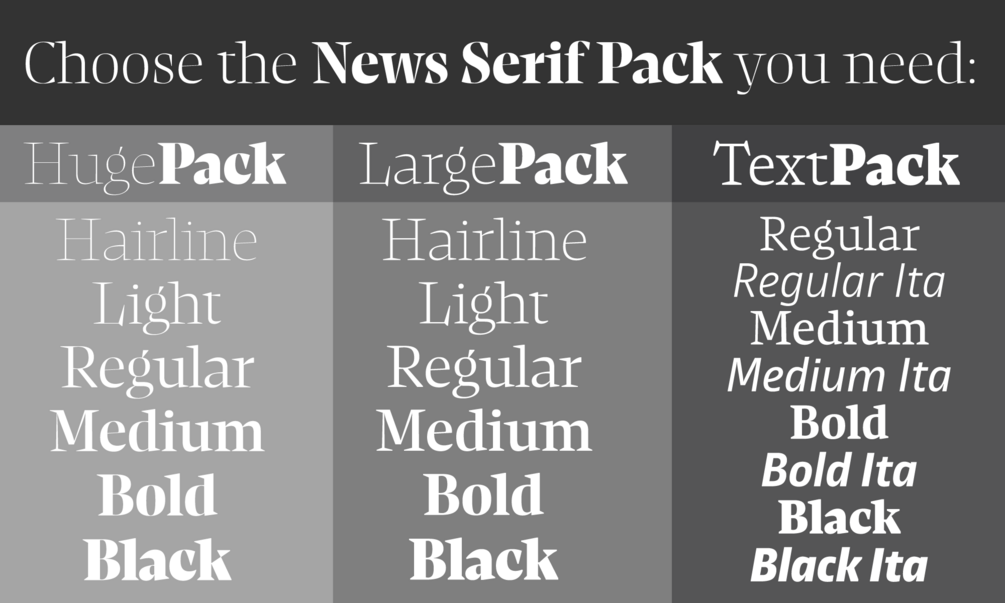
News Serif
News Serif is a typeface built for editorial and all typographic challenges – analogue or digital. The letter style evolves throughout the different subfamilies to become more expressive and excessive in the Large and Huge families.
All roman styles from the NewsSerif Text family are bundled with Italics from NewsSans. While this may appear to be an unusual pairing it makes a perfect match. The roman and italic weights are balanced perfectly.
Features: proportional, tabular, lining, oldstyle, superior, subscript, small cap and circled white and black figures, small caps, arrows, alternative glyphs.
Designed by Henning Skibbe.